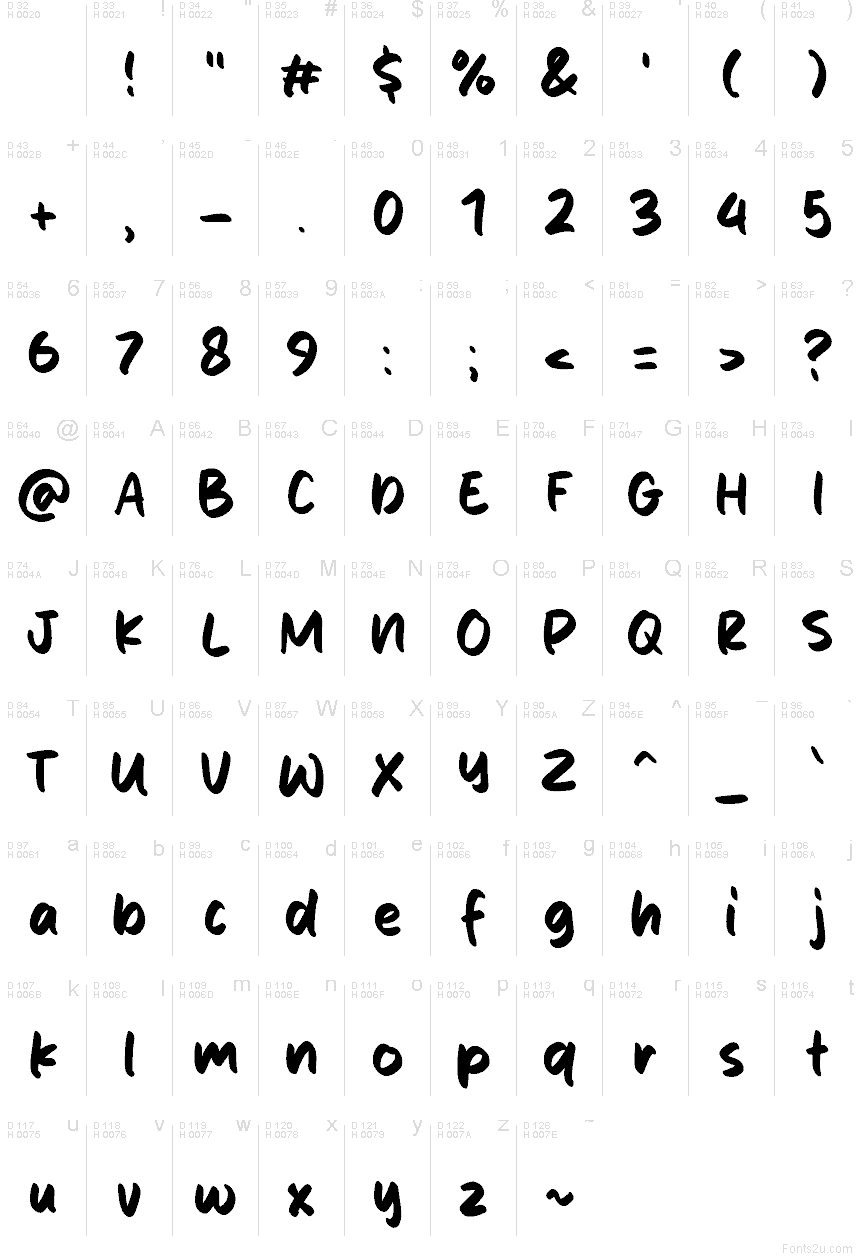
Sugar Cake
Sugar Cake font by MJType is a free handwritten marker typeface that feels like it was penned straight onto a café chalkboard. Bold, inky strokes with rounded edges give it a soft, sugary energy, while the steady rhythm keeps it easy to read at a glance. It’s playful without getting messy, so you get all the charm of casual handwriting with the clarity needed for real-world projects.
Using Sugar Cake, you can bring a friendly, homemade vibe to bakery branding, sweet packaging, kids’ posters, social media graphics, quote overlays, and event invitations. This free font shines when used large, where its brush texture and lively curves really show. Pair it with a clean sans serif for body text and you’ll have a warm, approachable visual identity that still feels polished.